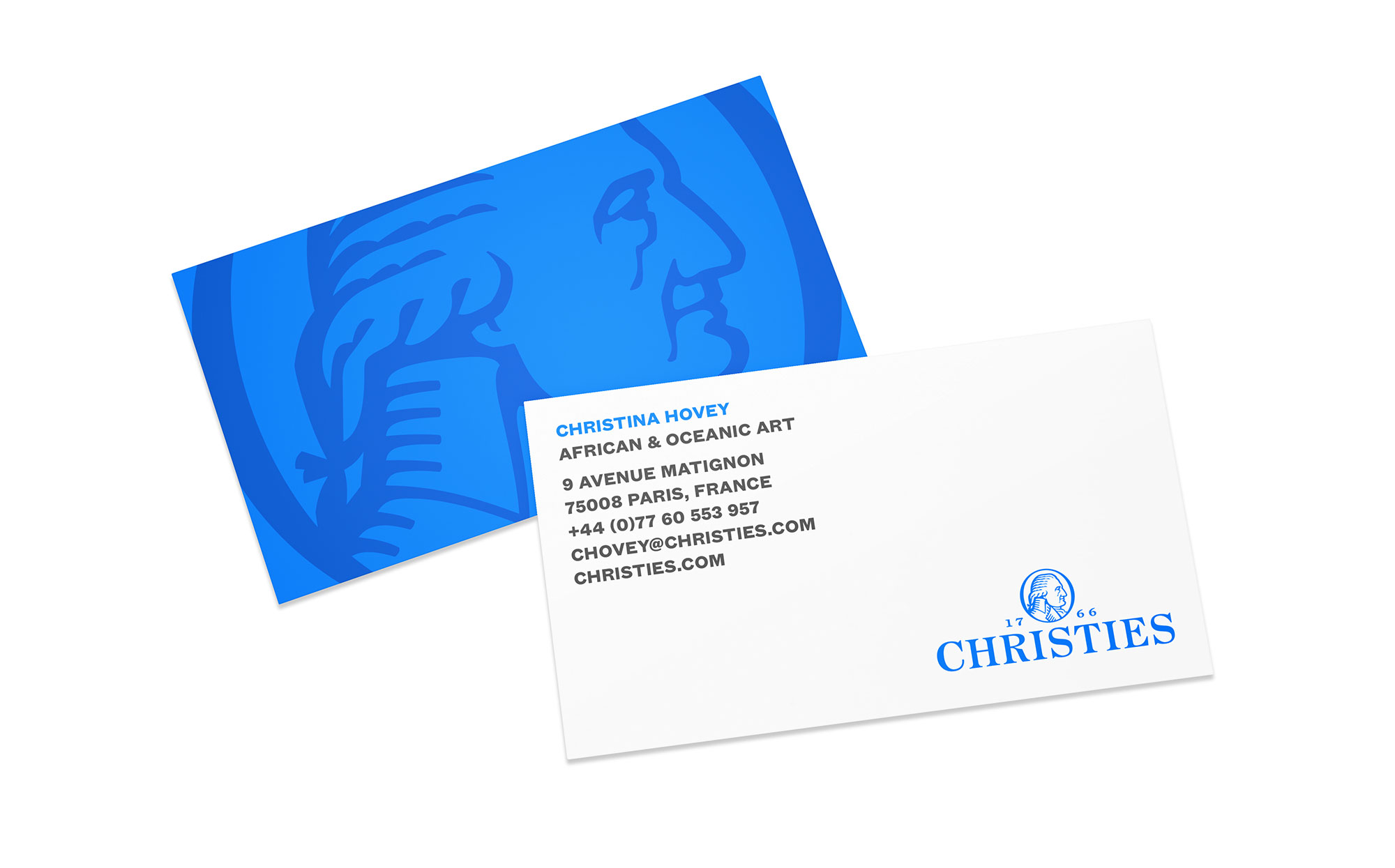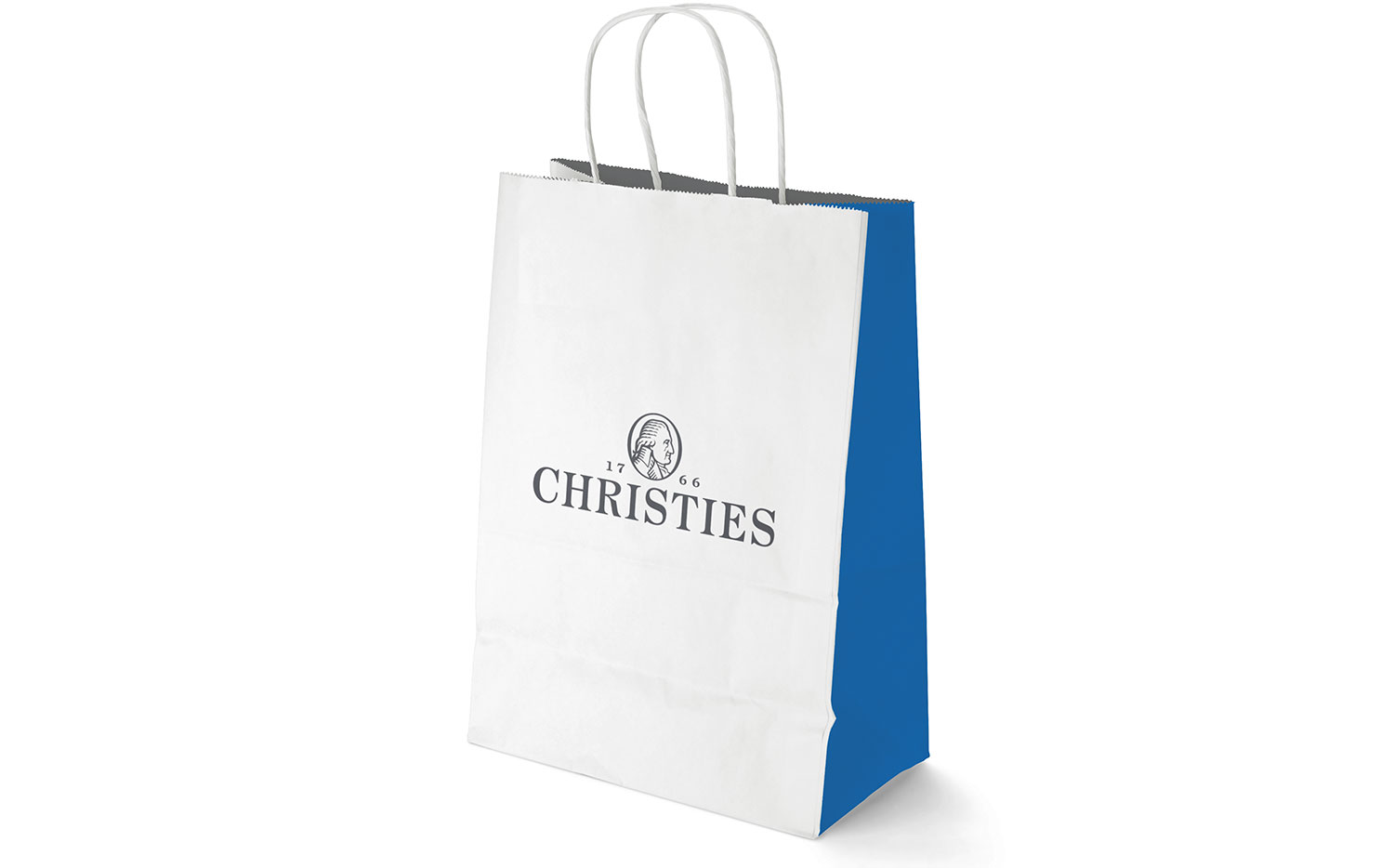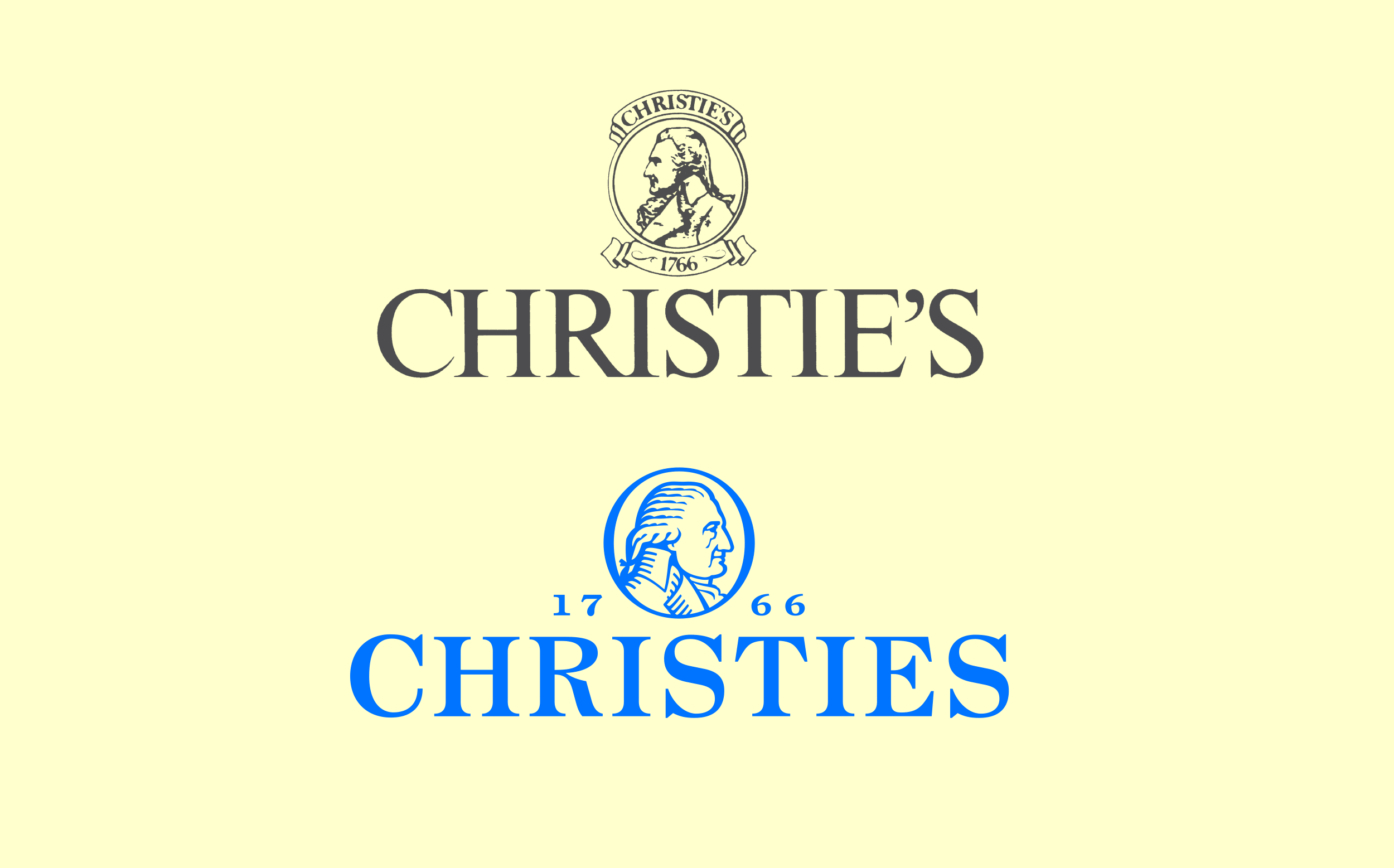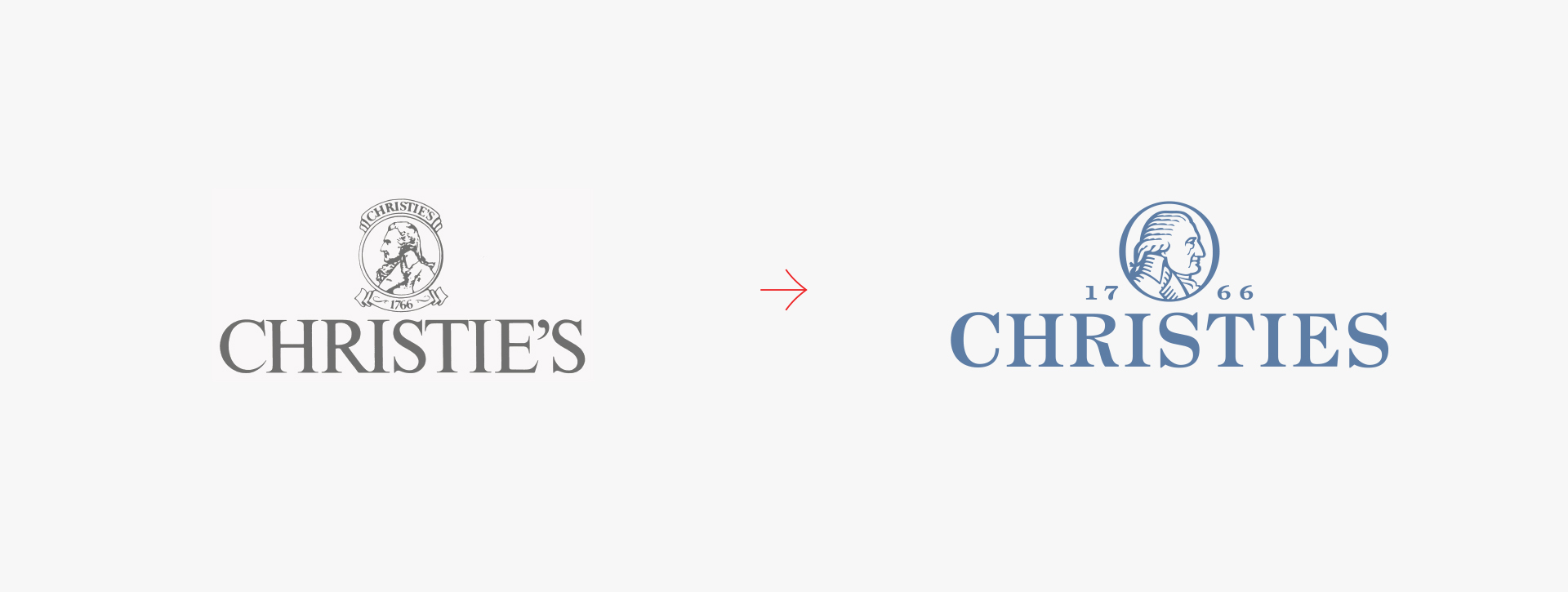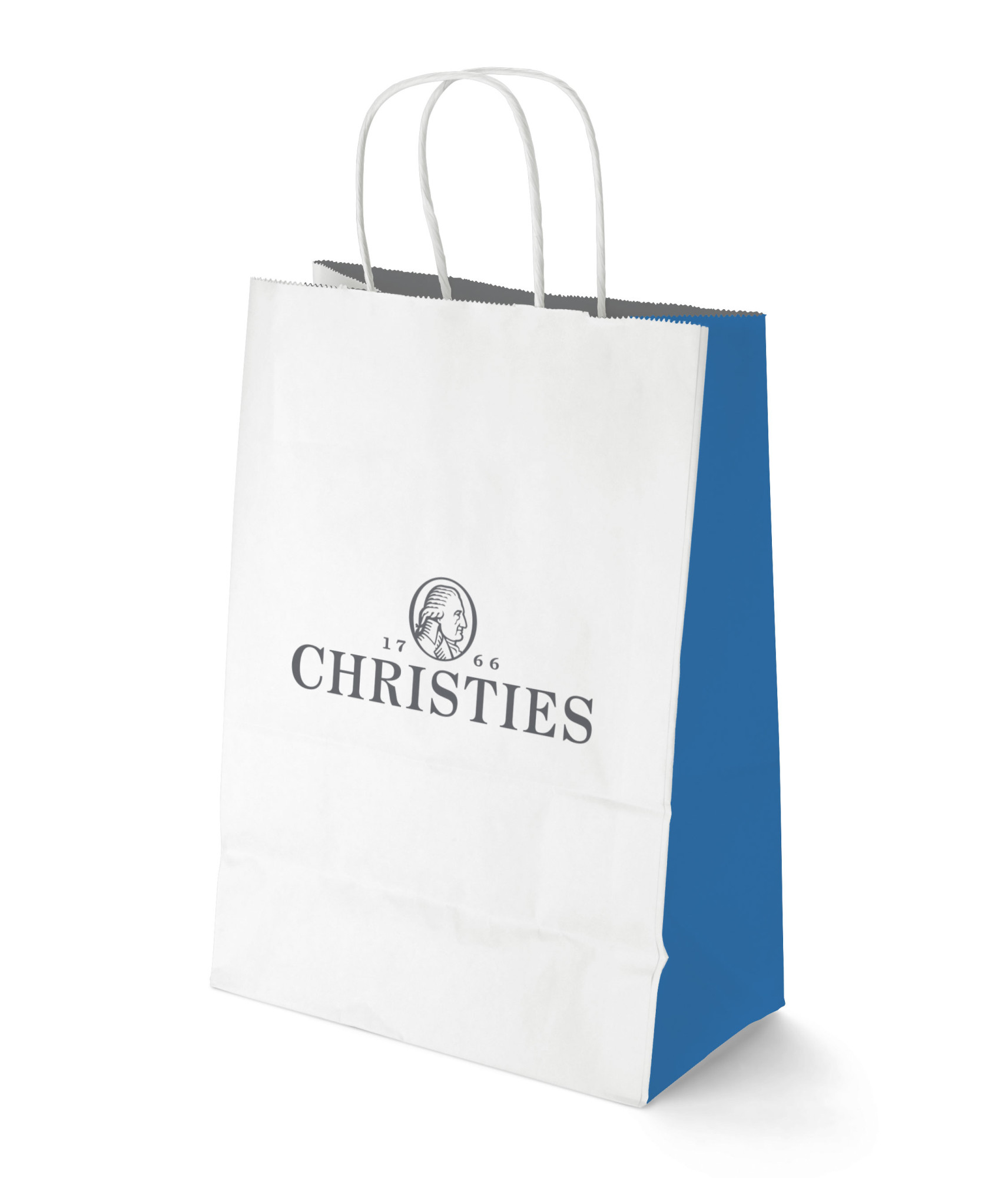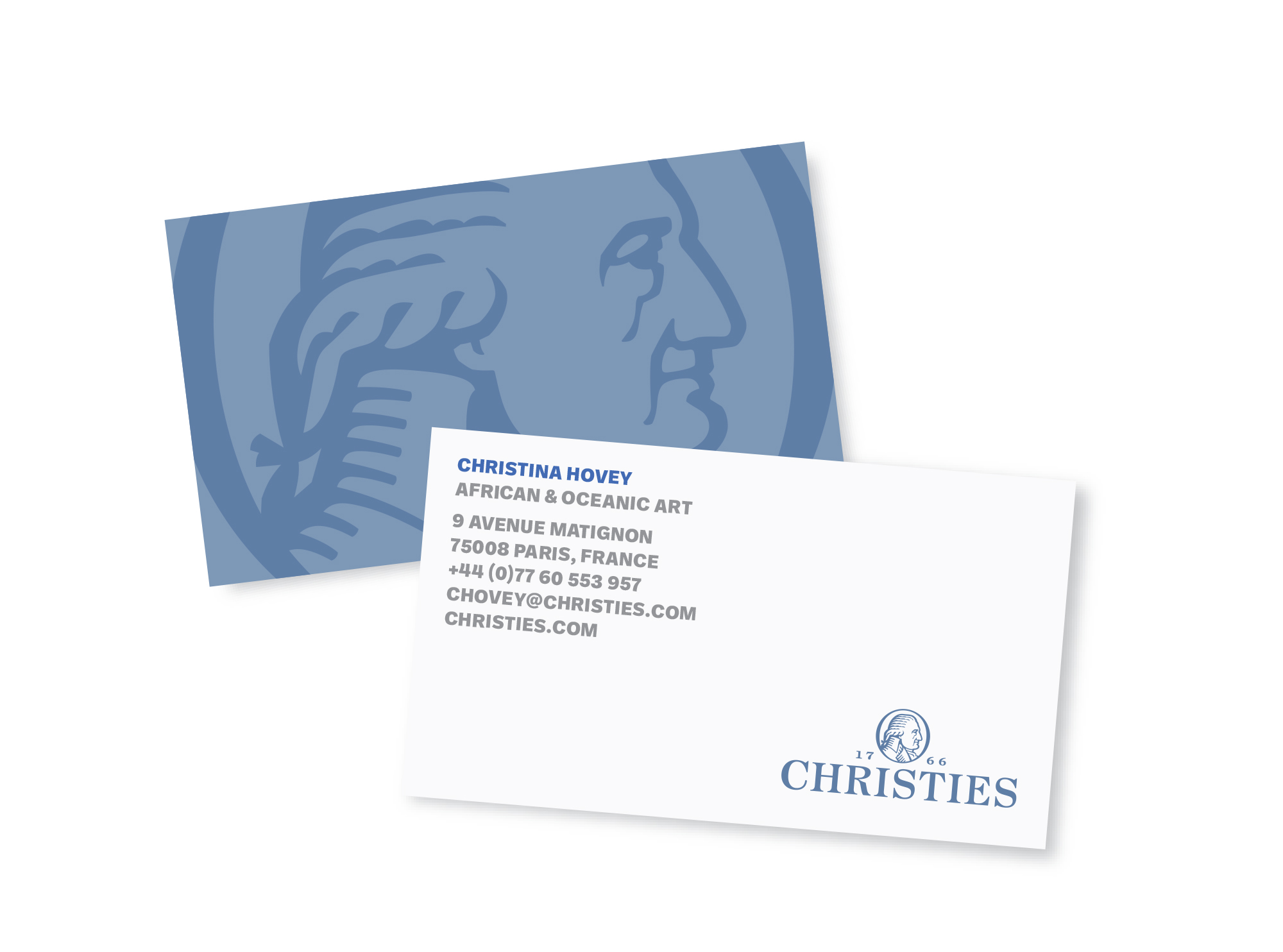
Christies
Christie’s is the world’s oldest auction house, and wanted their brandmark to reflect that heritage. Signal collaborated with design director Diana Salzburg to step back from their slick 1994 rebrand and explore a refresh of their midcentury logo lockup. Salzburg sent us to St. Paul’s church in lower Manhattan, where George Washington went for Sunday services, to sketch the incised memorial lettering on the back wall. She was particularly interested in what she called ‘the Prada R.’ The portrait of James Christie was flipped to face rightward, toward the future. It took a bit of time to draw, since it needed to be a recognizable likeness at 1/4" across on the business cards. On balance, we do not regret giving him cornrows. Sometimes you have to do what you have to do.